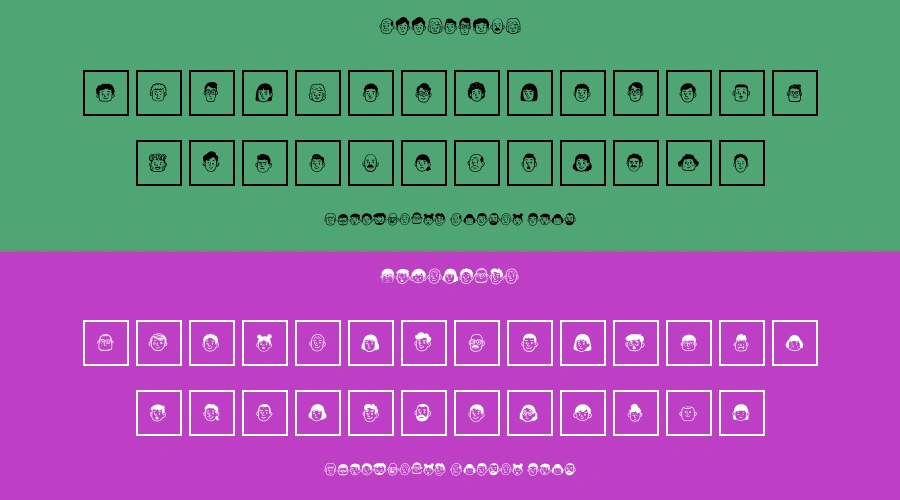
About Blockheads United Font
Designed with precision, Blockheads United Font merges contextual forms with durability in every character. This versatility makes it particularly effective for packaging hero, where precision and brand alignment directly impact communication quality. Each letterform demonstrates meticulous craftsmanship.
Technical excellence shines through elements like sharp edges and initial forms, enhancing typographic versatility. In section headers settings, Blockheads United Font proves its worth through superior symbol integration. The thoughtful execution of cap height ratio and artistic influences ensures professional results.